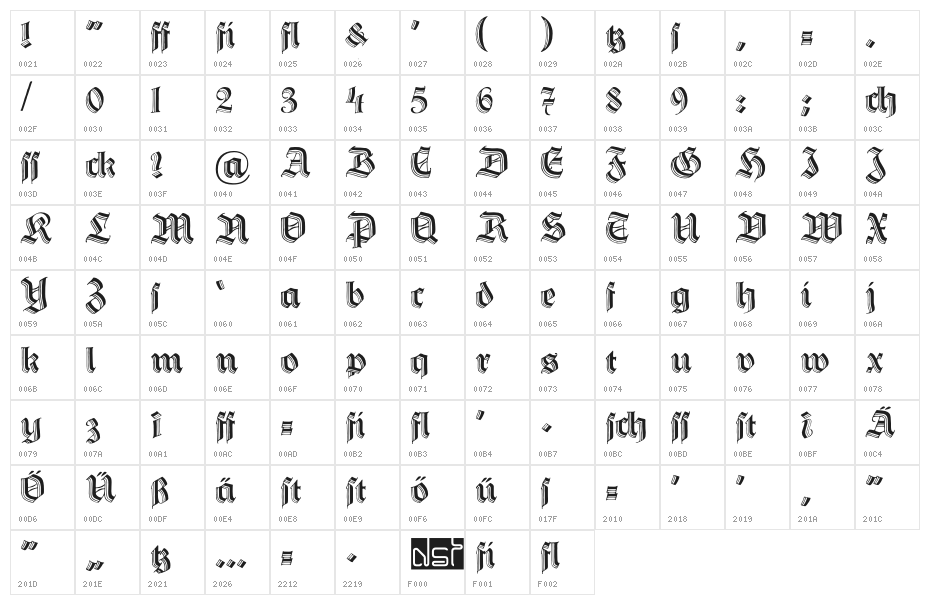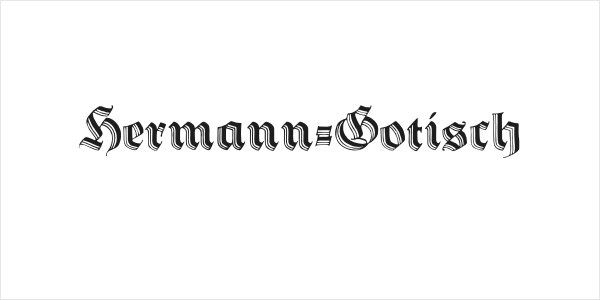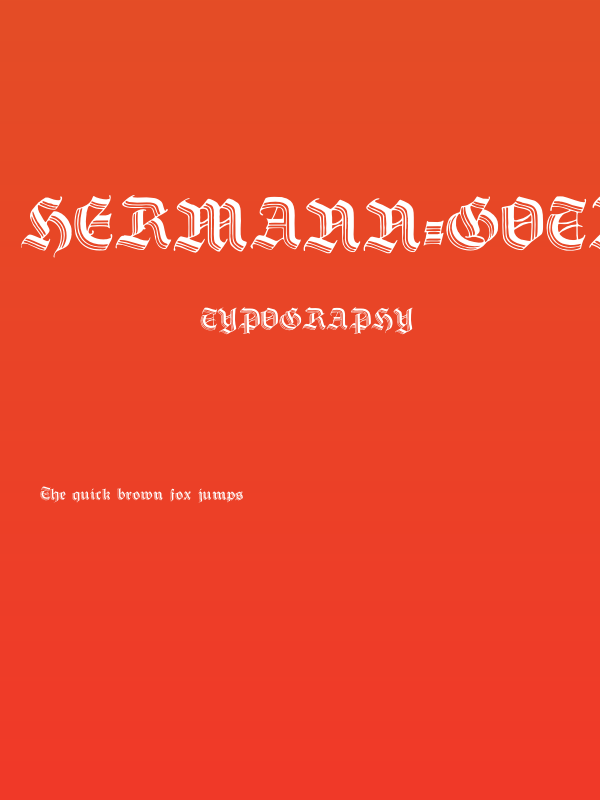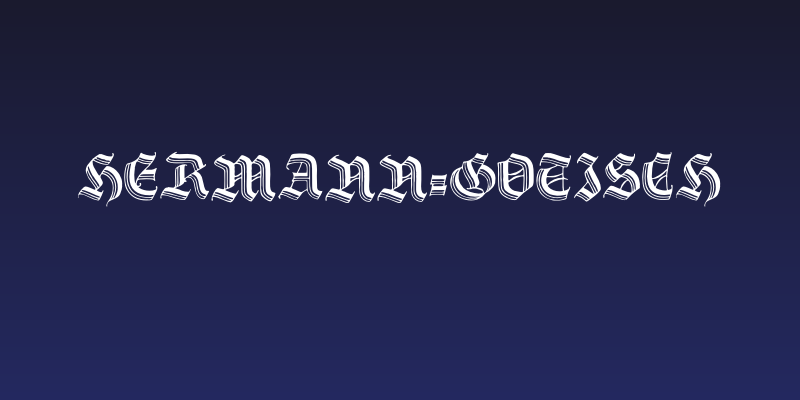
Hermann-Gotisch Font
Hermann-Gotisch Description
This font features a traditional blackletter style, characterized by its intricate and ornate design. The letters are bold and angular, with sharp serifs and a distinct medieval aesthetic. The uppercase and lowercase letters maintain a consistent style, with elaborate flourishes and a sense of historical elegance. The numbers and special characters are equally detailed, adding to the overall cohesive look. This font evokes a sense of antiquity and is reminiscent of Gothic script used in historical manuscripts.
| Use Case | Logos, Headlines, Decorative purposes |
| Proposed Projects | Ideal for projects requiring a historical or Gothic touch, such as book covers, posters, or branding for themed events. |